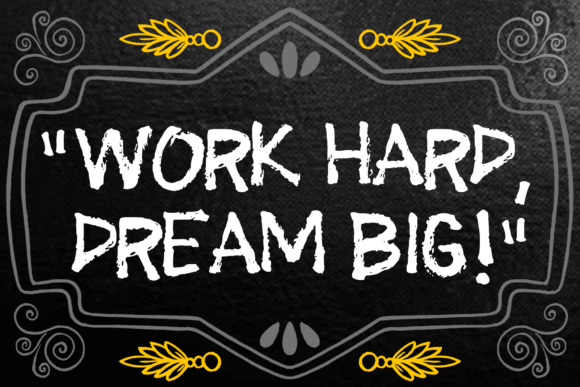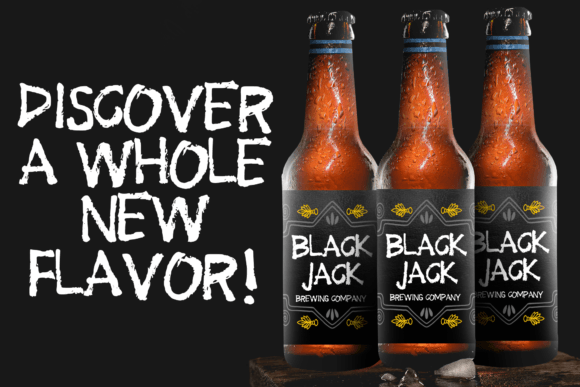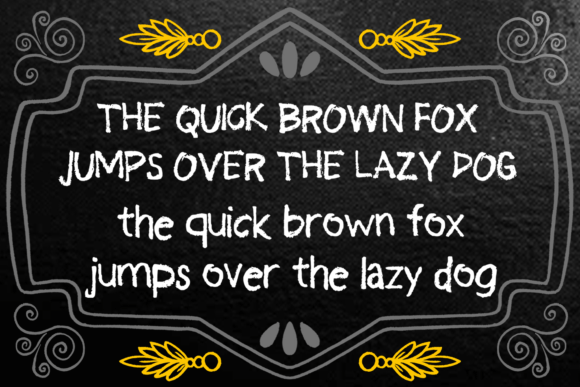
Introduction to Paint Brush Font
Paint Brush is a cool display font made with real brush strokes.
You can use it for anything ranging from t-shirts, kids’ book designs, greeting cards, stickers, and posters, or anything that needs a casual touch Try it to create lovely designs and feel the good vibes with it.
Key Features of Paint Brush Font
Why Choose Paint Brush Font?
Paint Brush Font offers exceptional quality and versatility, making it a valuable addition to your design toolkit. Whether you’re creating for personal projects or commercial use, Paint Brush Font delivers professional results.